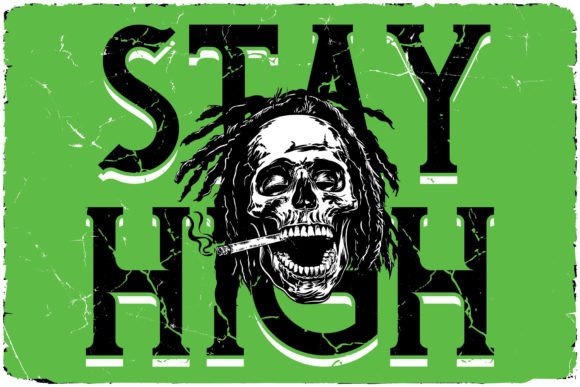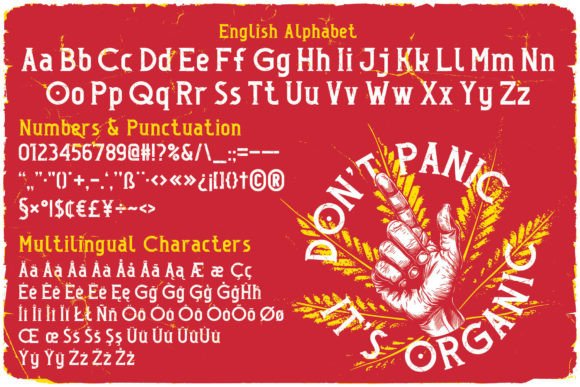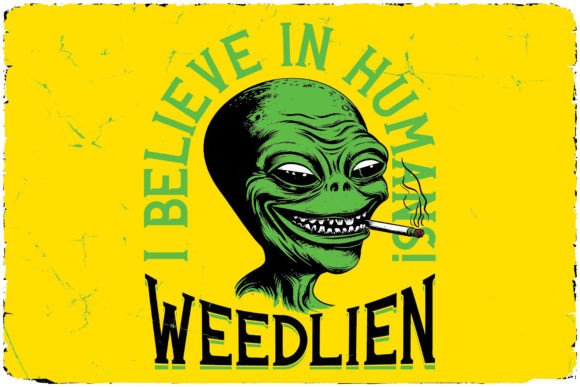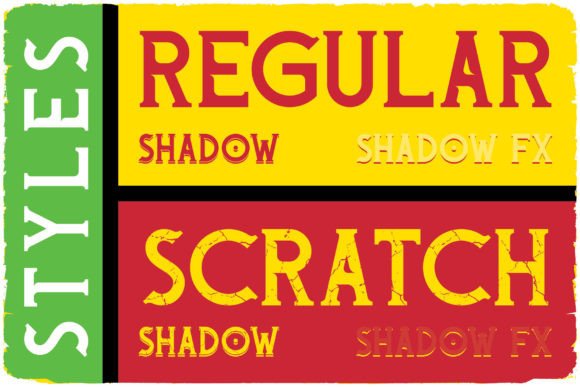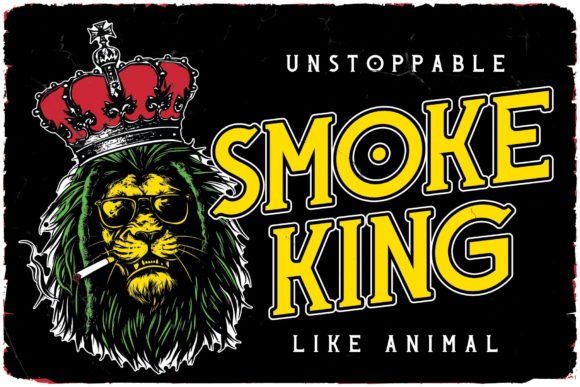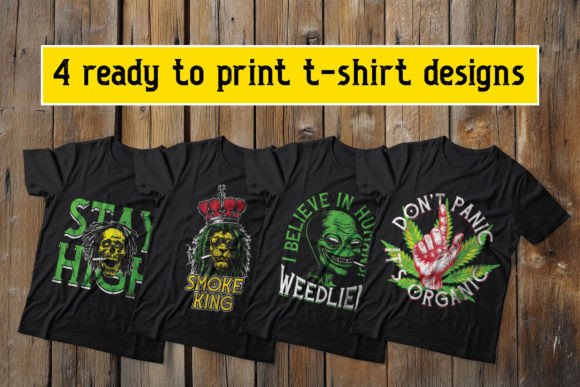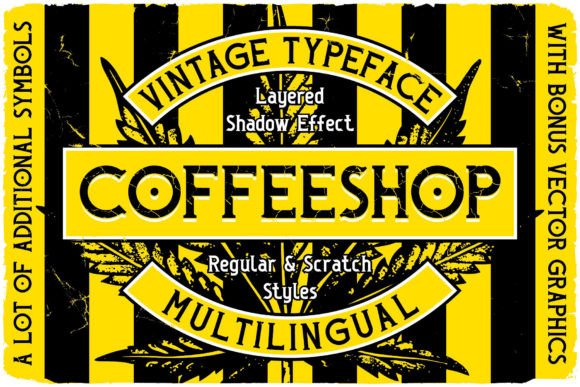
Coffeeshop Font: A Timeless Classic for Your Design Needs
Are you looking for a font that can add a touch of nostalgia and vintage charm to your designs? Look no further than the Coffeeshop font. This beautiful label font is perfect for creating retro-style labels, signage, and other projects that require a hint of timeless character. In this article, we’ll take a closer look at the Coffeeshop font, its features, and how you can use it to elevate your designs.
The Charm of Coffeeshop Font
Coffeeshop font is a nostalgic vintage label font that brings a rustic touch to your designs. Its classic appeal captures the essence of cozy coffee shops and old-world charm, making it perfect for designers and crafters who want to add a touch of warmth and authenticity to their work. The font’s simplicity and vintage flair make it an excellent choice for a wide range of design projects, from retro labels and signage to packaging and branding.
Key Features of Coffeeshop Font
- Vintage charm: Coffeeshop font has a unique vintage charm that is reminiscent of classic coffee shops and old-world signage.
- Classic appeal: The font’s classic appeal makes it perfect for designers who want to create timeless and elegant designs.
- Simple and elegant: Coffeeshop font is simple, yet elegant, making it easy to read and use in a variety of design projects.
- Rustic touch: The font’s rustic touch adds a warm and cozy feel to your designs, making it perfect for creating retro-style labels and signage.
Uses of Coffeeshop Font
Coffeeshop font is a versatile font that can be used in a wide range of design projects, including:
- Retro labels: Create vintage-style labels for your products or packaging with Coffeeshop font.
- Signage: Use Coffeeshop font to create eye-catching signage for your business or event.
- Branding: Add a touch of vintage charm to your brand with Coffeeshop font.
- Packaging: Use Coffeeshop font to create unique and eye-catching packaging for your products.
- Stationery: Add a touch of elegance and sophistication to your stationery with Coffeeshop font.
Why Choose Coffeeshop Font?
There are many reasons why you should choose Coffeeshop font for your design needs. Here are a few:
- Unique and distinctive: Coffeeshop font is a unique and distinctive font that will set your designs apart from others.
- Easy to read: The font is easy to read, making it perfect for use in a variety of design projects.
- Versatile: Coffeeshop font is a versatile font that can be used in a wide range of design projects.
- Timeless: The font’s classic appeal makes it a timeless choice that will never go out of style.
Tips for Using Coffeeshop Font
Here are a few tips for using Coffeeshop font in your designs:
- Use it sparingly: Use Coffeeshop font sparingly to add a touch of vintage charm to your designs.
- Pair it with other fonts: Pair Coffeeshop font with other fonts to create a unique and eye-catching design.
- Experiment with colors: Experiment with different colors to find the perfect combination for your design.
- Keep it simple: Keep your design simple and elegant to let Coffeeshop font shine.
Coffeeshop font is a beautiful and versatile font that can add a touch of vintage charm to your designs. Its classic appeal, simplicity, and rustic touch make it perfect for creating retro-style labels, signage, and other projects that require a hint of timeless character. Whether you’re a designer or crafter, Coffeeshop font is an excellent choice for adding warmth and authenticity to your creative endeavors.